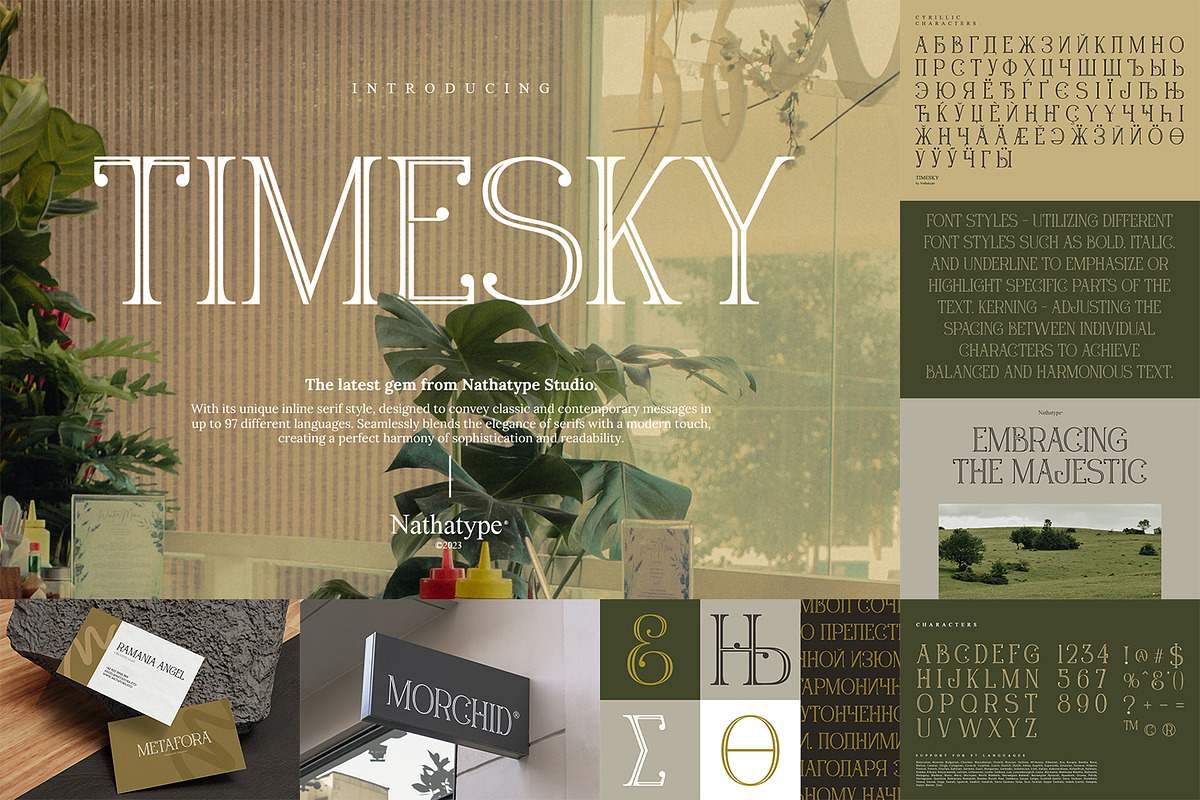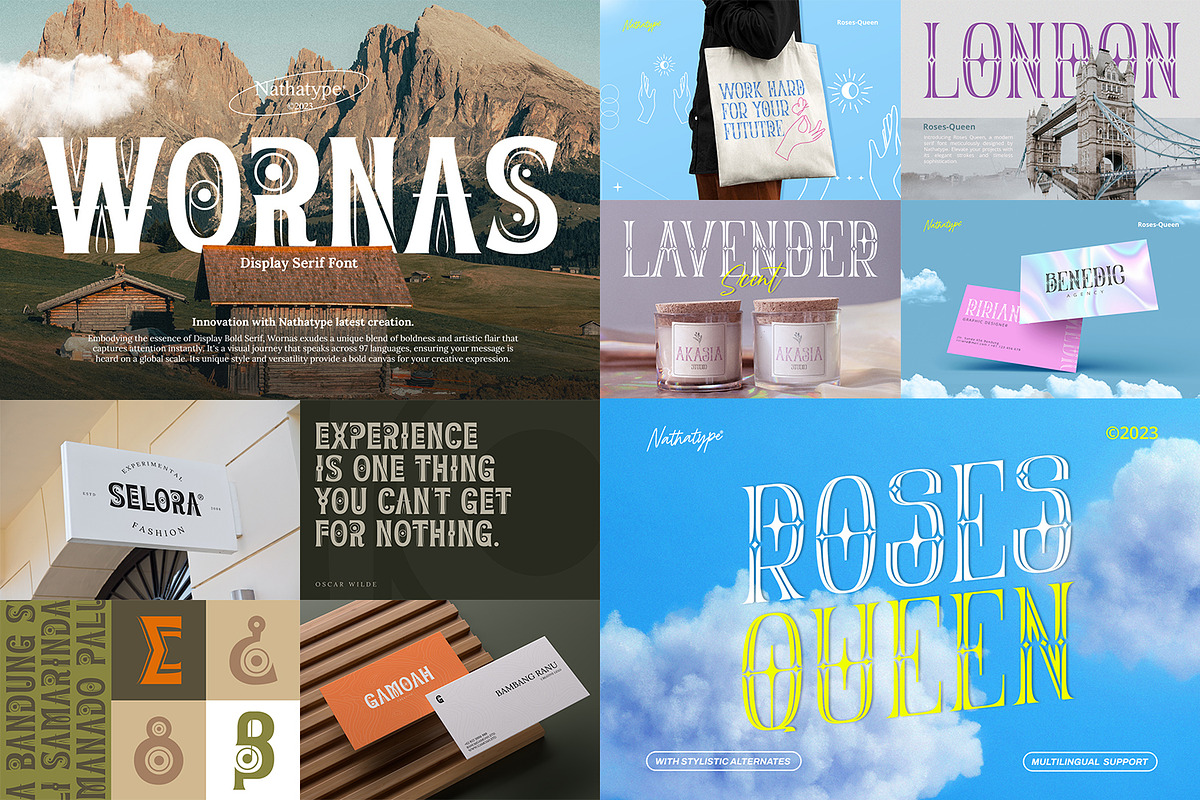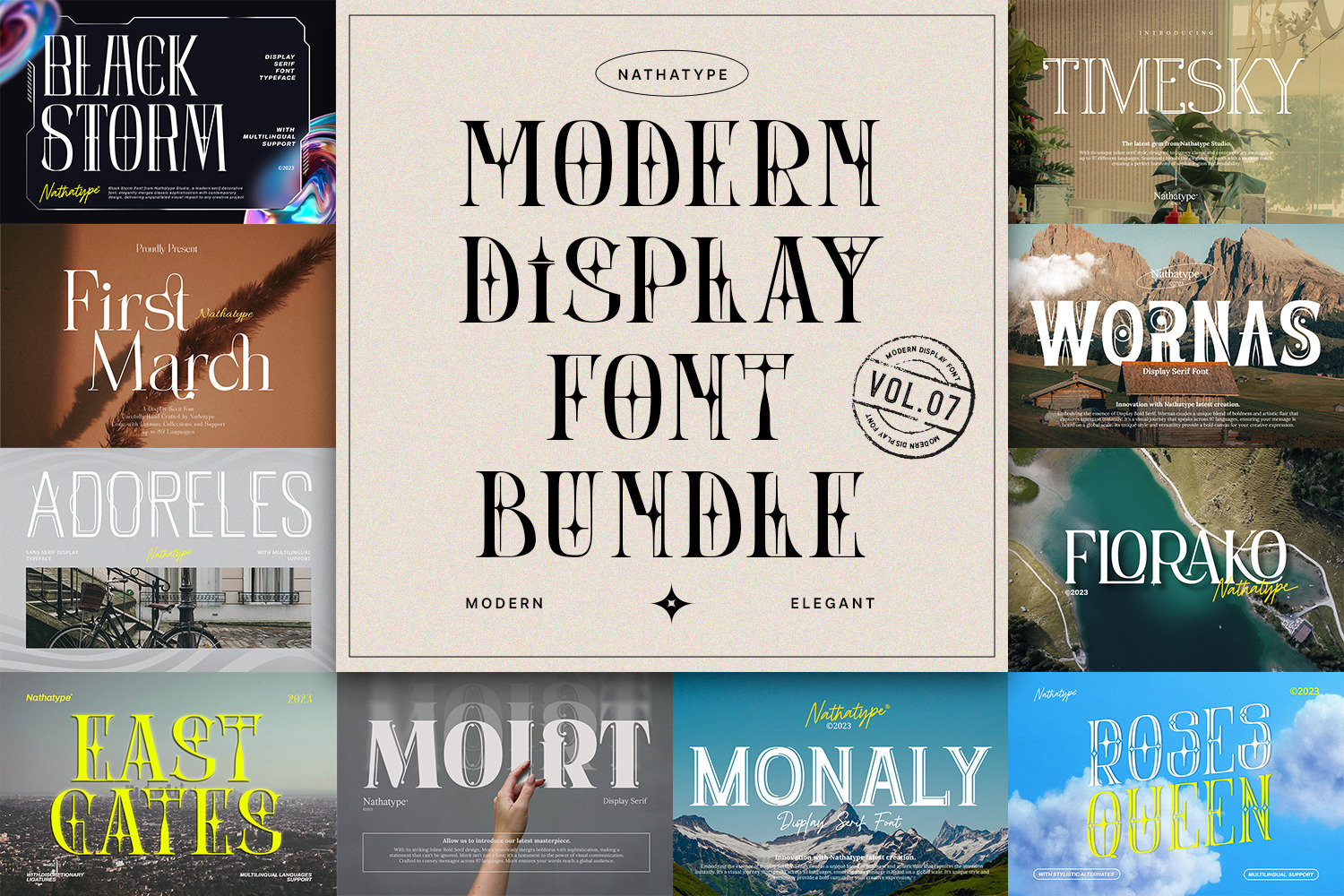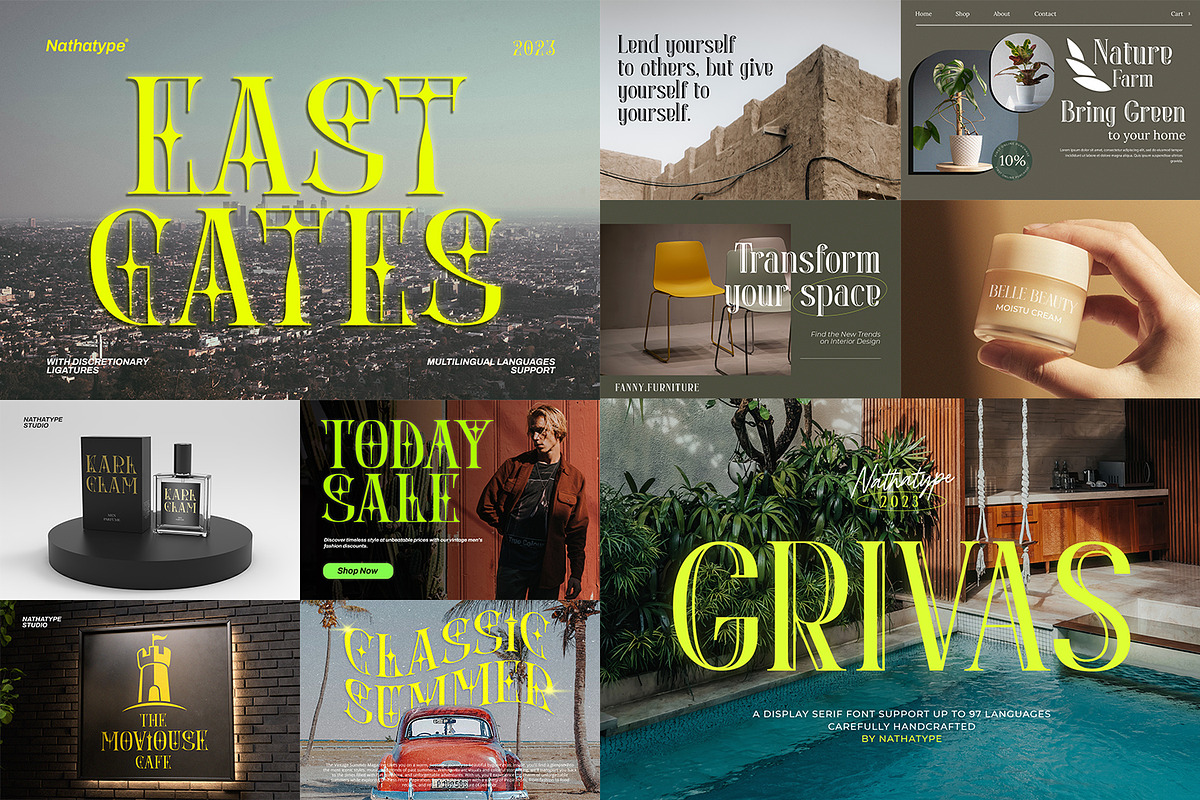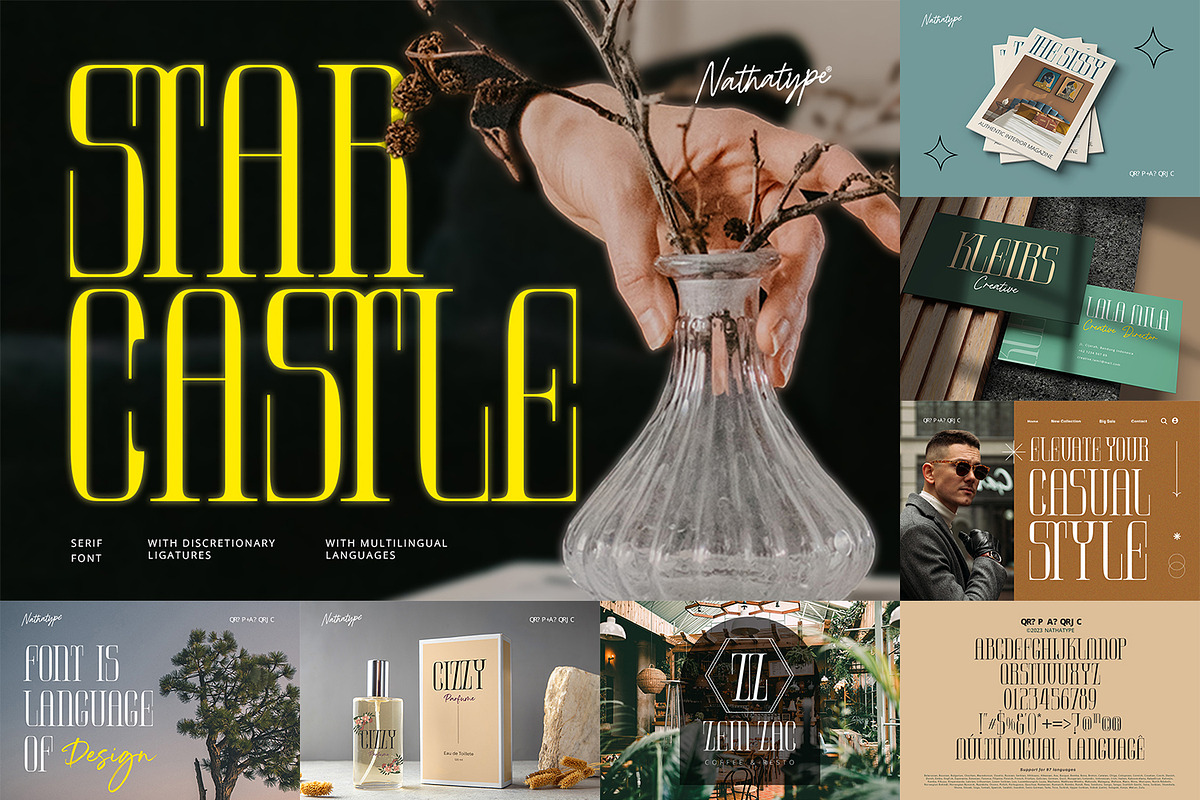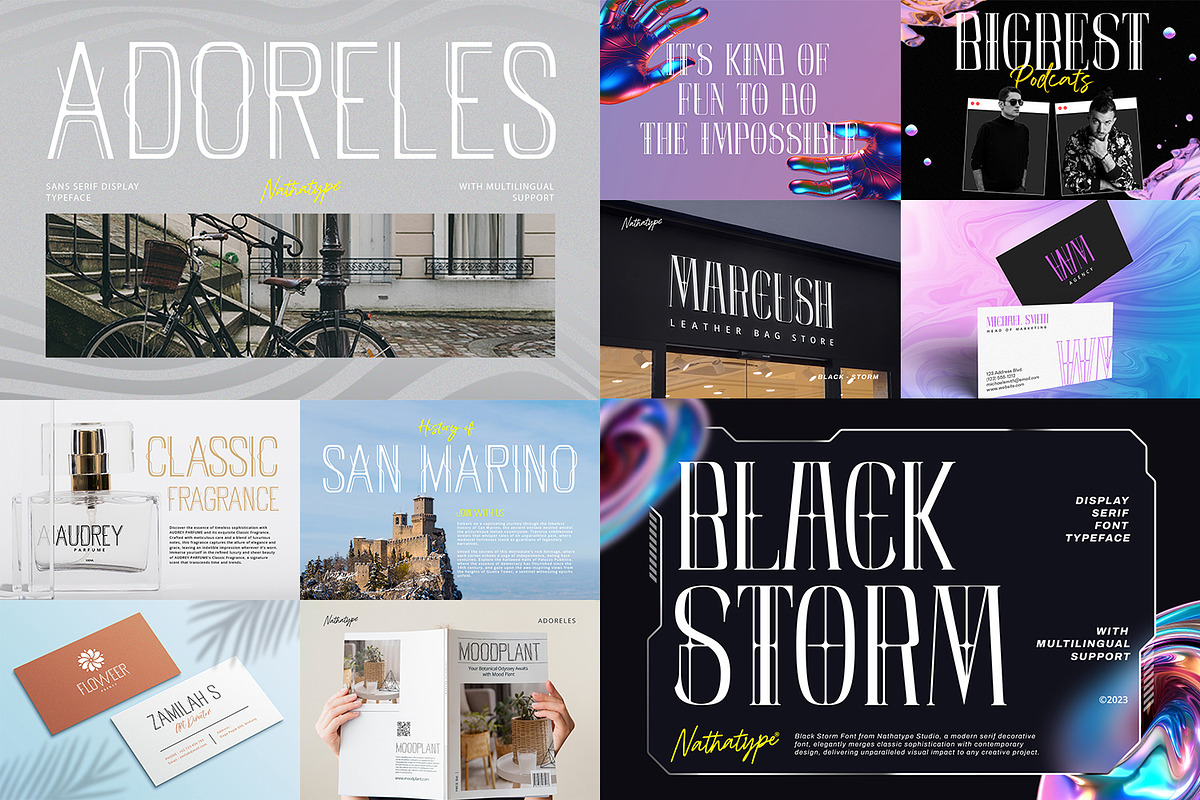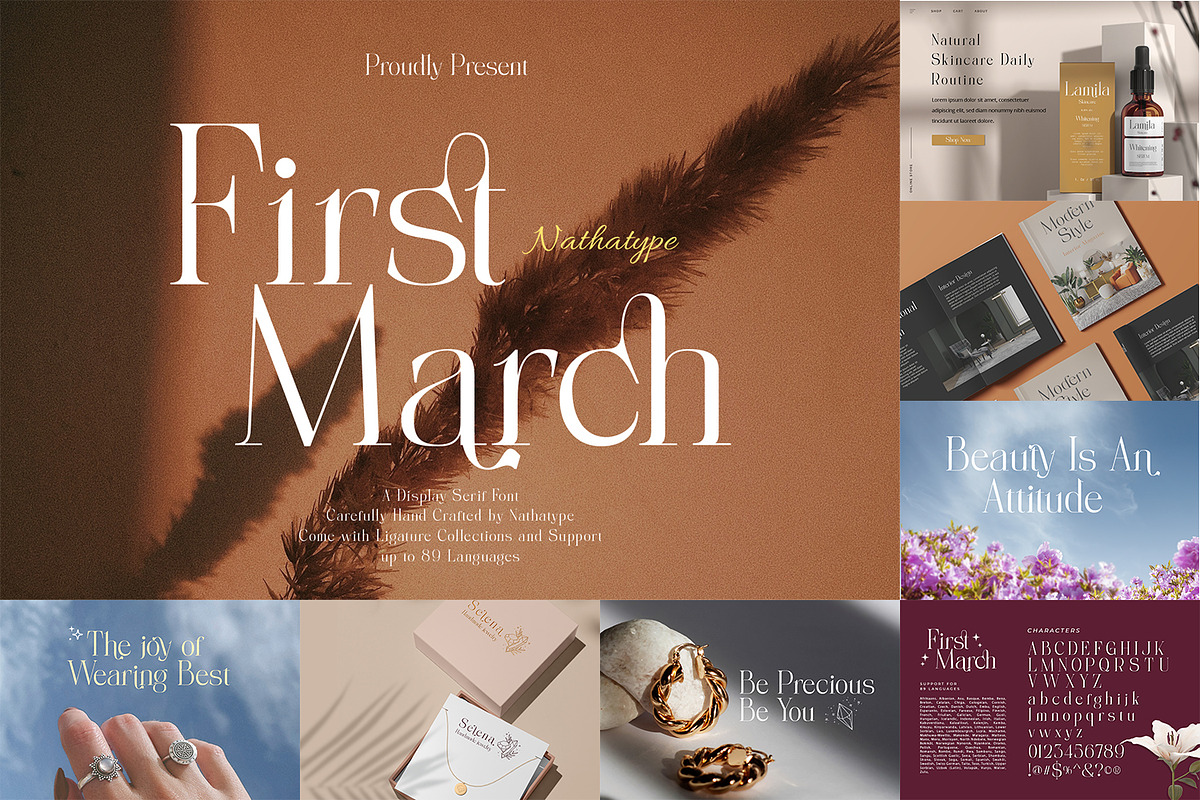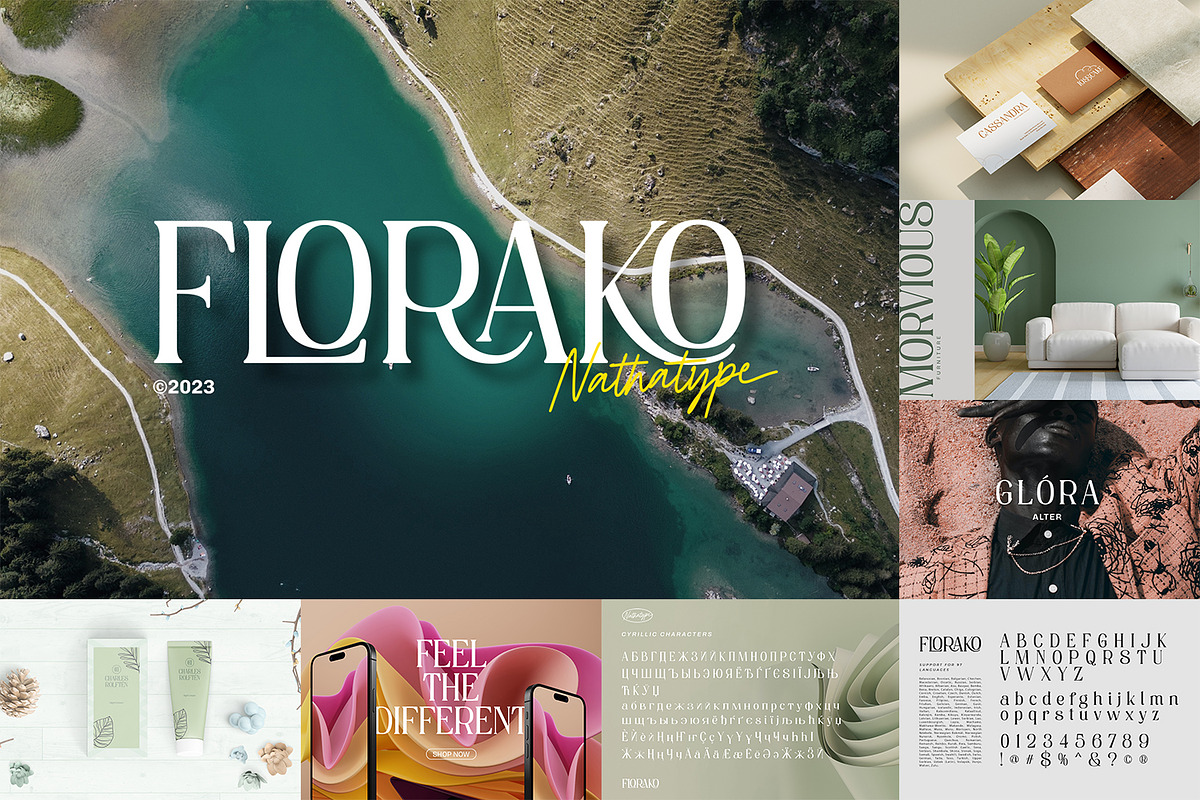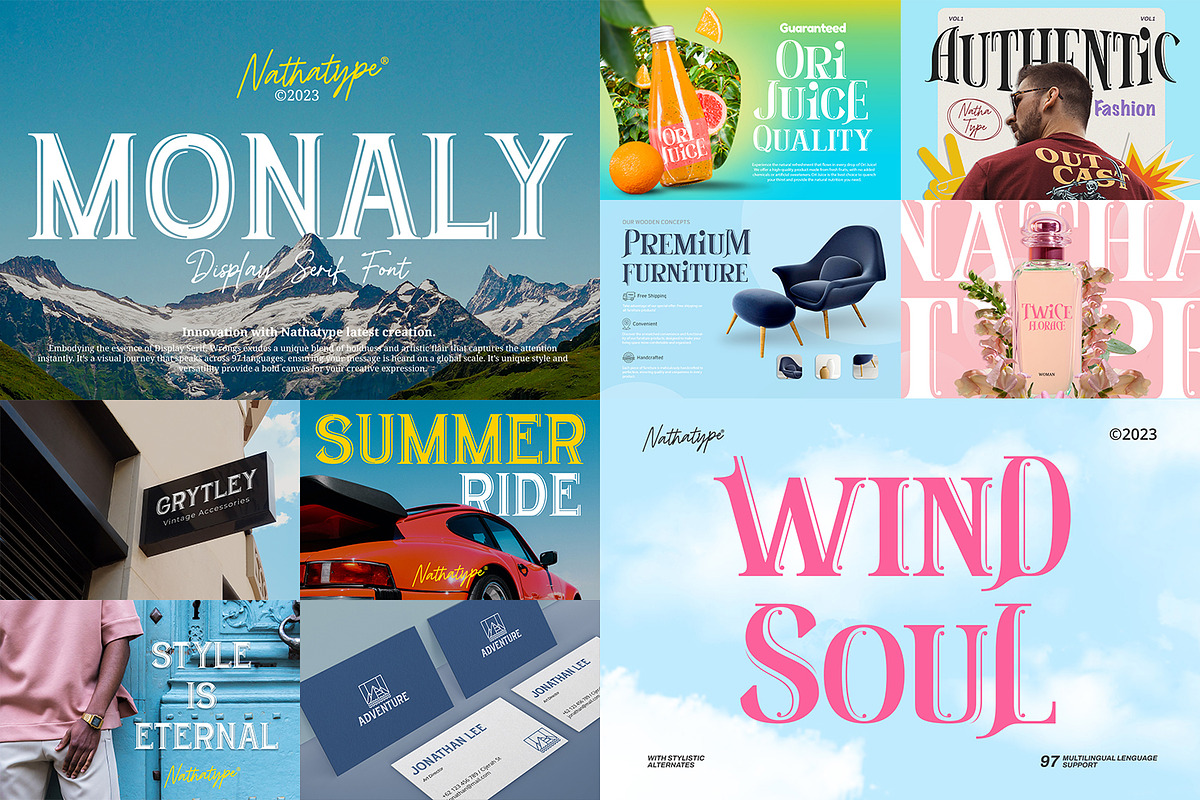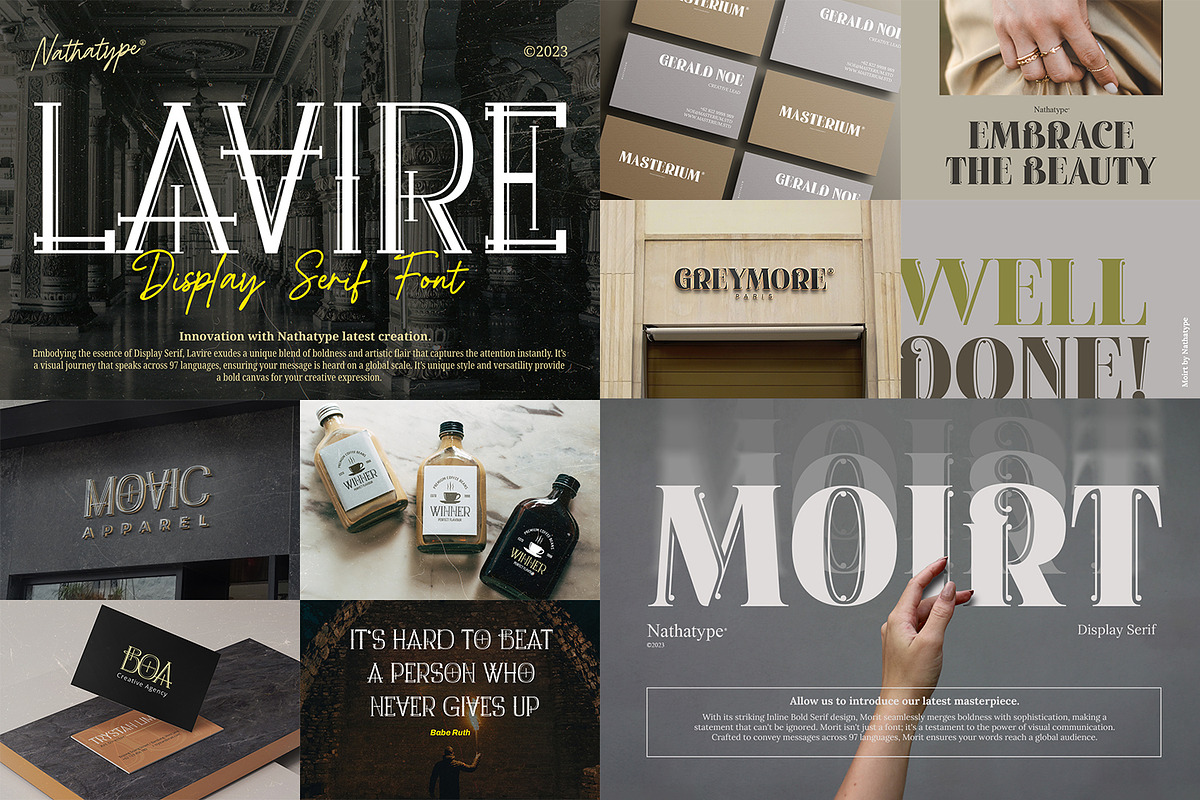
Modern Display Font Bundle 7
Hello Everyone! Do you want something special? Then, say hello to Modern Display Font Bundle 7 from Nathatype.
Step into the world of contemporary design with this bundle. A curated collection of cutting-edge typefaces tailored for the demands of today's design landscape. Each font in this bundle is meticulously crafted to embody the essence of modernity, offering a diverse range of styles and personalities to suit any project. It can be used for many design projects, such as poster, logo, book cover, branding, heading, printed product, merchandise, quotes, social media campaign, etc.
The font includes Multilingual Support as our commitment to support your brand globally recognize. See the previews above to get some inspiration on how you can use them.
Modern Display Font Bundle included :
- Adoreles– https://creativemarket.com/nathatype/91726858-Adoreles
- Black Storm – https://creativemarket.com/nathatype/91928122-Black-Storm
- East Gates – https://creativemarket.com/nathatype/91726855-East-Gates
- First March– https://creativemarket.com/nathatype/27124609-First-March
- Florako – https://creativemarket.com/nathatype/27124610-Florako
- Grivas – https://creativemarket.com/nathatype/42191981-Grivas
- Lavire – https://creativemarket.com/nathatype/42301563-Lavire
- Moirt – https://creativemarket.com/nathatype/42208244-Moirt
- Monaly – https://creativemarket.com/nathatype/42301542-Monaly
- Roses Queen – https://creativemarket.com/nathatype/91730668-Roses-Queen
- Star Castle – https://creativemarket.com/nathatype/91726856-Star-Castle
- Timesky – https://creativemarket.com/nathatype/42208559-Timesky
- Wind Soul – https://creativemarket.com/nathatype/91726865-Wind-Soul
- Wornas – https://creativemarket.com/nathatype/42208311-Wornas